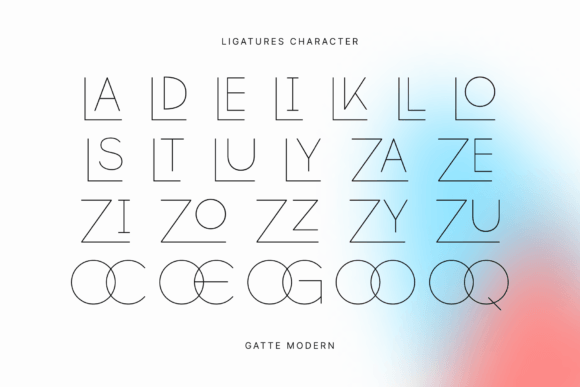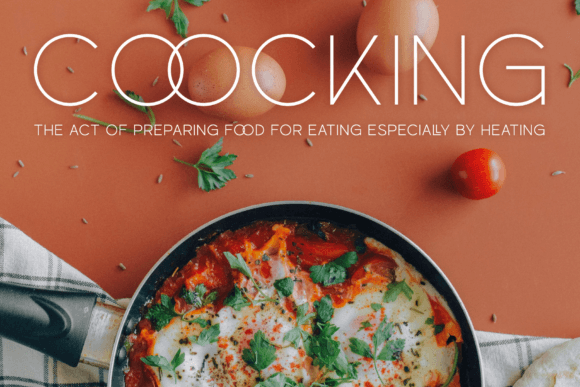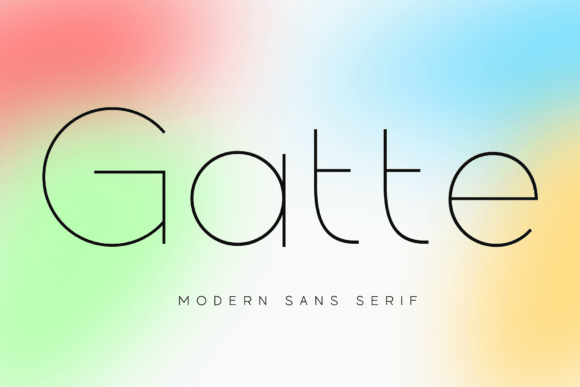
Gatte Font Family
Designer: Fitrah Type
Gatte Font Family, exuding a marriage of minimalist simplicity and sublime elegance, Gatte Modern presents as a sleek, sans serif font in five distinct styles. Sculpted with a nod to the majesty of grand scale design, each typographical nuance shines when sized up significantly. Perfectly suited to merchandise creation, punctuating your social media presence or driving home your marketing message, Gatte Modern steps up as an inspired choice for both product packaging and identity branding. Formed with the full spectrum of uppercase and lowercase letters, numerals, and punctuation, it’s a font that adds character to your textual landscape.